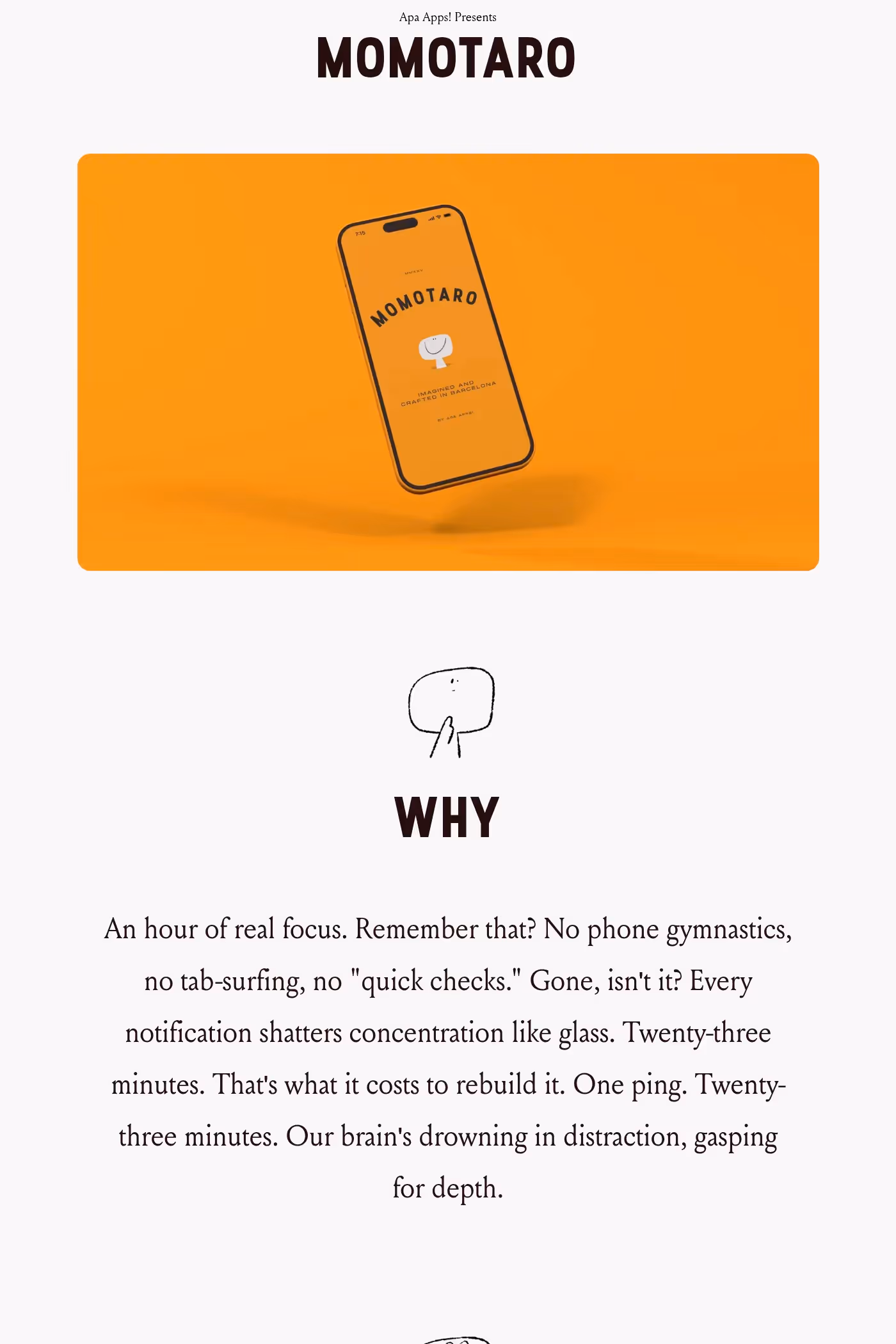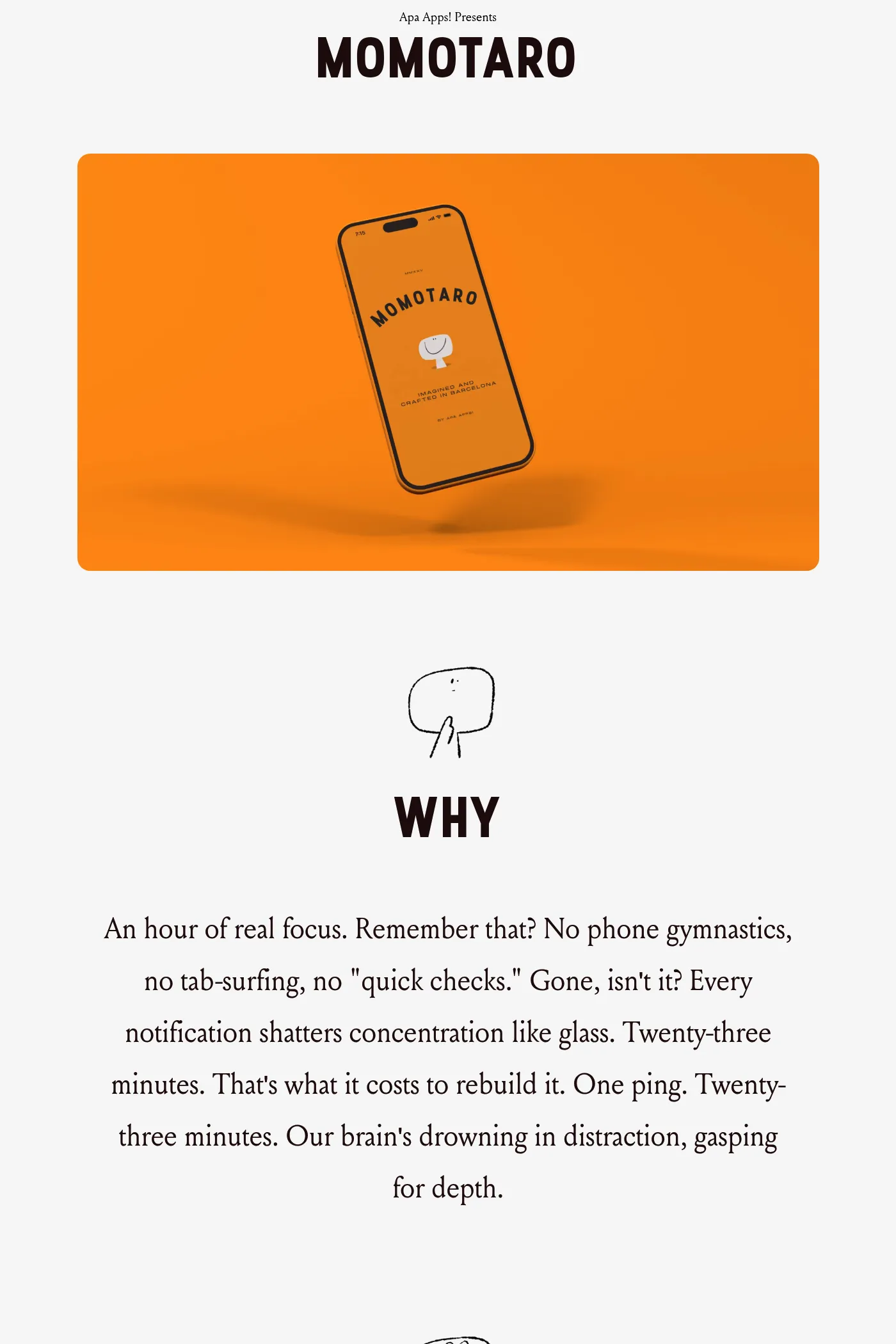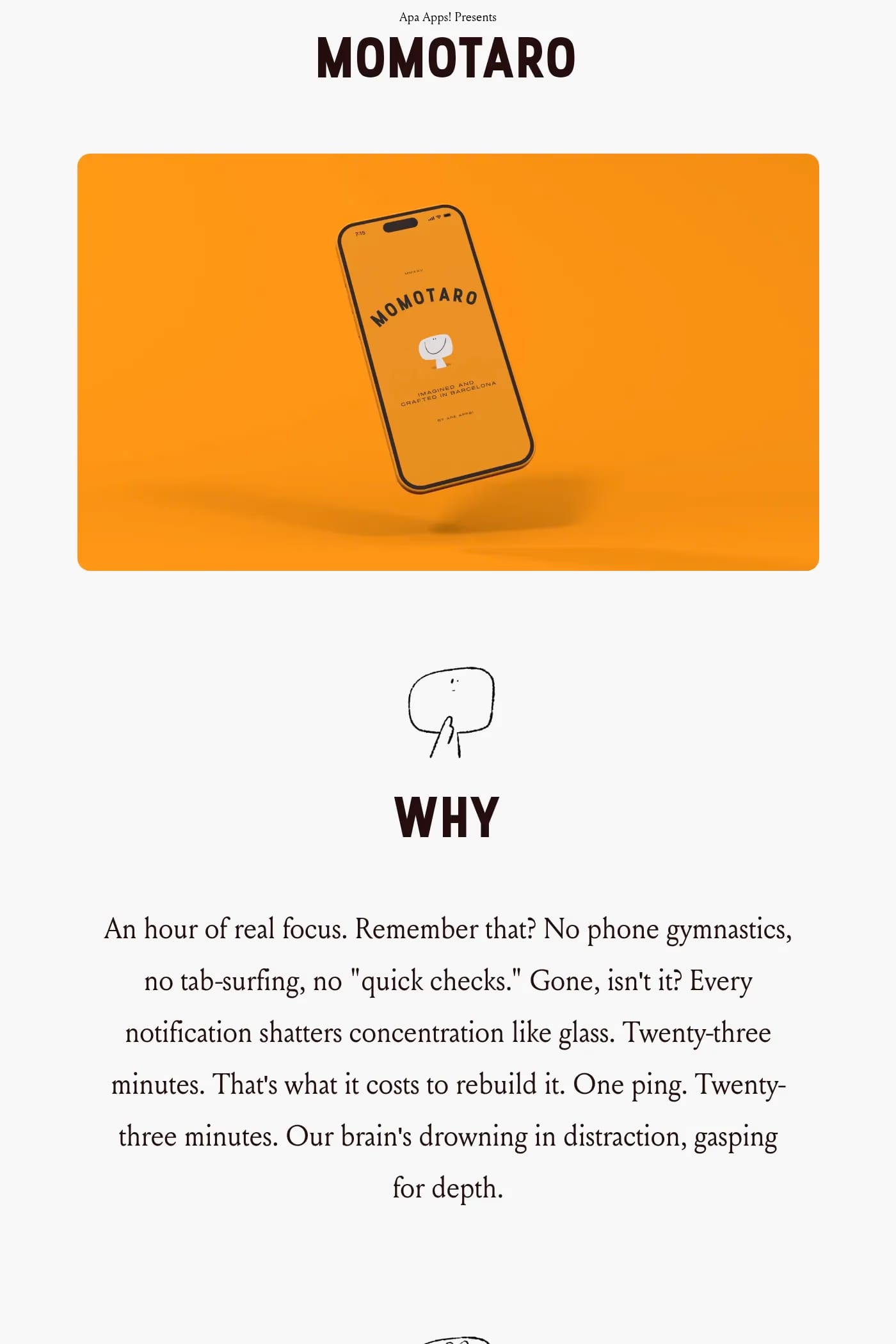
Stellar is a sans-serif typeface from Pangram.
Stellar is a slightly condensed sans serif type with a taller x-height to give it legibility and personality.
A1 features 1 website using Stellar. It leans towards Clean, Bright, and Hand-drawn design styles, and it’s most often built with Framer.